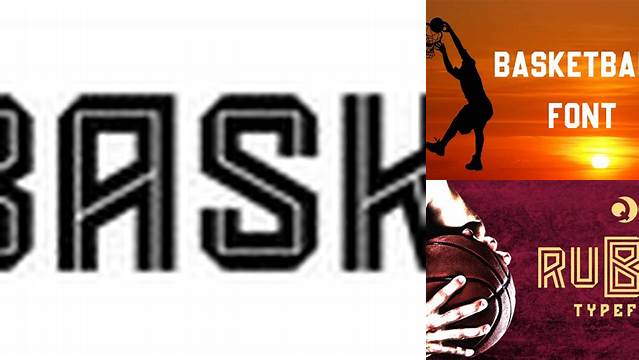
Rubas Basketball Font: Free Download & Design Guide
Hey guys! If you're looking to slam dunk your design projects with a fresh, sporty vibe, you've landed in the right place. We're diving deep into the world of the Rubas basketball font – and the best part? You can grab it with a free download! This font is a total game-changer for anyone wanting to add a touch of athleticism and energy to their work. Whether you're crafting posters, designing team logos, or just spicing up your social media posts, Rubas has got you covered. So, let's jump in and explore everything you need to know about this awesome font. Get ready to level up your design game!
What Makes Rubas Basketball Font So Special?
Alright, let's talk about what makes Rubas basketball font so darn cool. First off, it perfectly captures the spirit of the game. The font is bold, dynamic, and full of movement – just like a fast-paced basketball game! It's the kind of font that grabs your attention and screams, "Game On!" The design is clean, yet impactful, making it versatile enough to use in a variety of projects. Think about those classic basketball jerseys, the scoreboards, and the high-energy graphics you see during a game. Rubas font embodies that same aesthetic, offering a professional and stylish look. The font's weight and style are designed to be easily readable, even from a distance, which is super important for anything that needs to make an impact.
This font isn't just about looks, though. It's about creating a feeling, an association with the excitement, competition, and camaraderie that comes with basketball. When you use Rubas, you're not just writing words; you're telling a story. It's about passion, dedication, and the thrill of the game. And that's what makes it so special! Another key aspect is its versatility. You can use it for headlines, subheadings, body text (though perhaps sparingly), and even in more decorative ways. It plays well with other fonts, too, so you can mix and match to create unique designs. Because it's a display font, it is perfect for making a statement. From team logos to promotional materials, Rubas helps you create something truly memorable. Plus, because it's specifically designed to capture the spirit of basketball, it is a great choice for any project related to the sport. It is perfect for anyone looking to add a sporty edge to their projects, creating a sense of excitement and energy that can really bring your designs to life. It's the perfect way to create a visual language that speaks volumes about the spirit of the game!
Design Ideas: Unleashing Creativity with Rubas Basketball Font
Ready to get your creative juices flowing? Let's explore some killer design ideas using the Rubas basketball font. First up, team logos and branding. Rubas is absolutely perfect for creating a strong visual identity for sports teams, leagues, or even individual athletes. Use it to design logos, jerseys, and promotional materials that scream athleticism and energy. Think about pairing Rubas with a contrasting font for the team name or tagline to make it even more dynamic. Next, we have posters and flyers. If you're organizing a basketball tournament, a sports event, or even just a fun get-together, Rubas is your go-to font. Create eye-catching posters and flyers that capture the excitement of the game. Use bold colors, dynamic layouts, and maybe even incorporate some basketball-themed graphics to amplify the message. How about social media graphics? In today's digital world, social media is key. Create engaging social media posts using Rubas font. Craft exciting posts to generate likes, shares and overall engagement. Think about using it for quotes, announcements, or even creating custom graphics for your profile. Website headers and banners are another great way to use the font. Make your website stand out with a bold, sporty header using Rubas. It's a fantastic way to signal the focus of your website right away. For merchandise like t-shirts, mugs, and stickers, Rubas is a fantastic choice. Design cool merchandise for teams, events, or fan clubs. Experiment with different color combinations, styles, and design elements to create unique, eye-catching products. And lastly, don't forget about event promotions and announcements. Whether it's a game, a tryout, or a fundraiser, Rubas can help create buzz. Design invitations, banners, and promotional materials that get people excited about the event.
Rubas Font: Tips and Tricks for Best Results
Okay, guys, let's talk about some insider tips and tricks to make the most of your Rubas basketball font free download. First up, experiment with sizing. Since Rubas is a display font, it's best used in larger sizes, such as headlines and subheadings. Play around with different sizes to find what works best for your project. Next, consider the color palette. This font looks amazing with bold, vibrant colors. Try pairing it with colors commonly associated with basketball, such as orange, black, blue, and white. Color contrast is key! Ensure your font color has enough contrast with the background. This guarantees your text is easy to read. White text on a dark background or vice versa often works really well. Another important aspect is spacing and kerning. Rubas is designed to be impactful, so play with the letter spacing (kerning) to find the right balance. Sometimes, a little extra space between letters can make a big difference in readability and visual appeal. Don't be afraid to experiment! This font is versatile, so it can be used in many ways. Try combining it with different fonts to create unique designs. It's a great way to add extra visual interest to your project. Also, consider the context. Rubas is perfect for anything related to basketball or sports, but you can also use it creatively in other projects. It can add a touch of energy to any type of design. To make sure the font is the best it can be, proofread your text. Make sure your design is free of typos. Accuracy is crucial for a professional look. Also, consider the overall layout of your design. Try to create a clear, balanced layout with good visual hierarchy. This ensures that your message is easily understood and looks professional. By following these tips, you can make the most of your Rubas basketball font and create designs that really make a statement.
Final Thoughts: Level Up Your Designs with Rubas Basketball Font
So there you have it, guys! Everything you need to know about the Rubas basketball font. From getting your Rubas basketball font free download to design ideas and licensing, we've covered it all. This font is an awesome tool for any designer looking to add a sporty and energetic vibe to their projects. With its bold design and versatility, Rubas is a perfect choice for team logos, posters, social media graphics, and much more. So go ahead and download the font, experiment with different designs, and let your creativity soar! Remember to always respect the licensing terms and have fun. Now go out there and slam dunk your designs. Good luck, and happy designing!